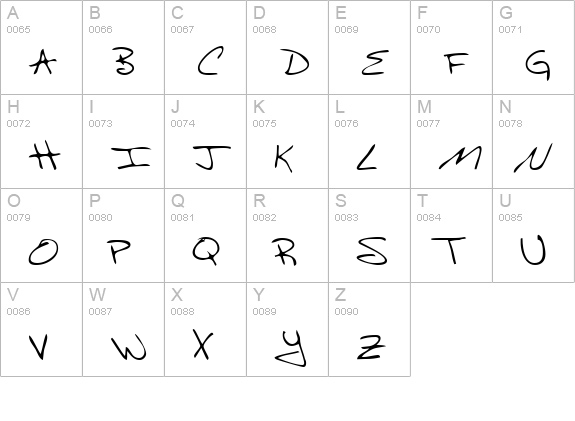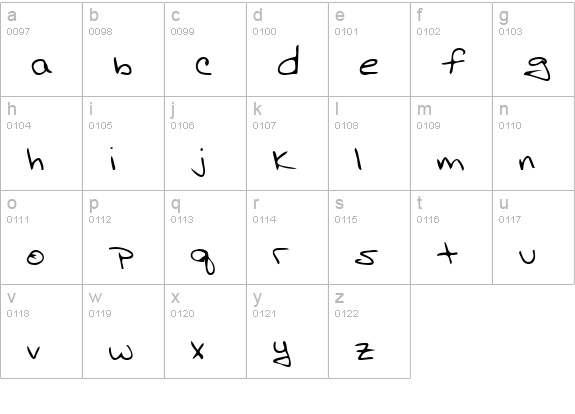
AdamsHand Regular Font Details
AdamsHand Regular is the standard, neutral variant in the AdamsHand typeface family \xE2\x80\x94 well suited to general body text, paragraphs, and standard typographic work.
AdamsHand Regular is a charming and versatile handwritten font that exudes a warm and friendly vibe. With its elegant curves and unique flair, this font is perfect for adding a personal touch to various design projects. Whether you're creating invitations, greeting cards, or branding materials, AdamsHand Regular will infuse your work with a sense of creativity and authenticity. Best of all, AdamsHand Regular is completely free to download at FontsMarket.com. This means you can easily access this lovely font and use it in your projects without any cost. Don't miss out on the opportunity to enhance your designs with the beauty of AdamsHand Regular - download it today and let your creativity shine!